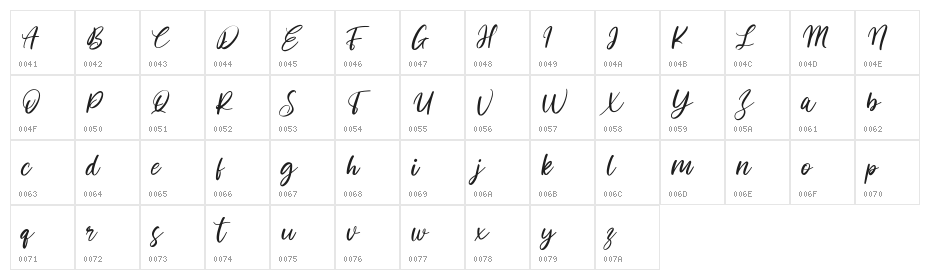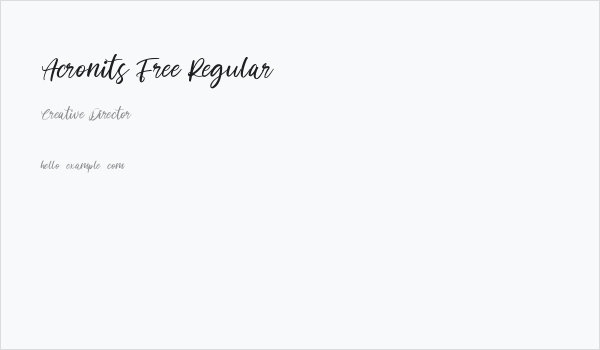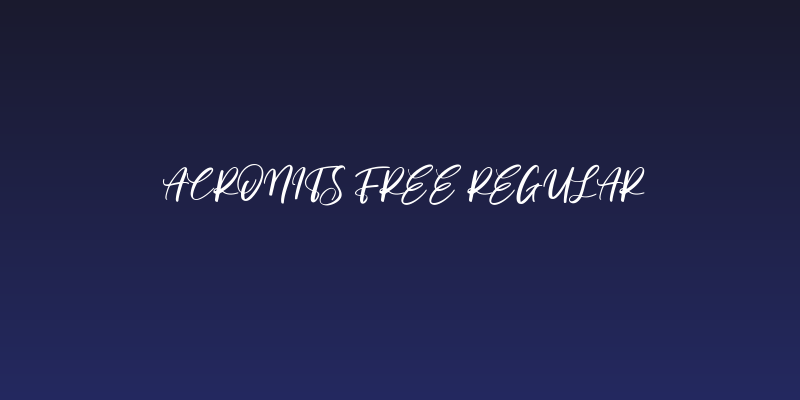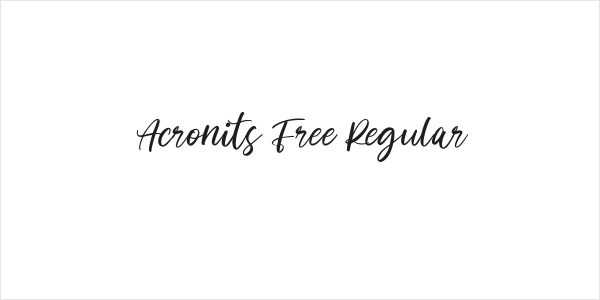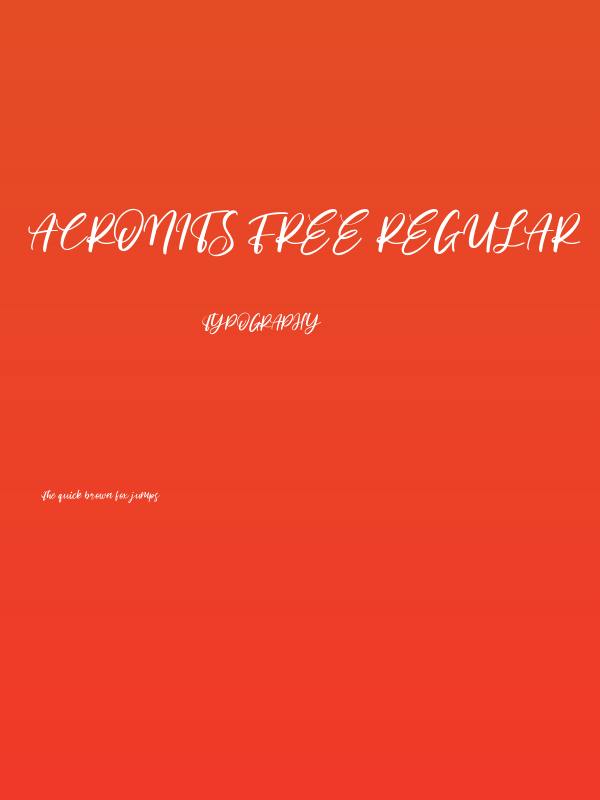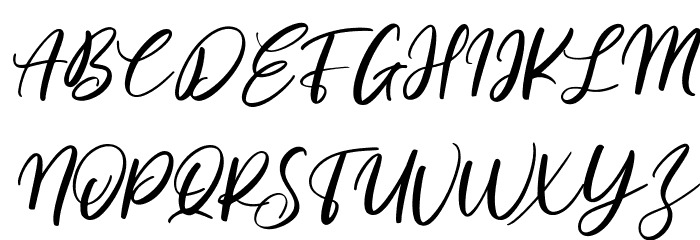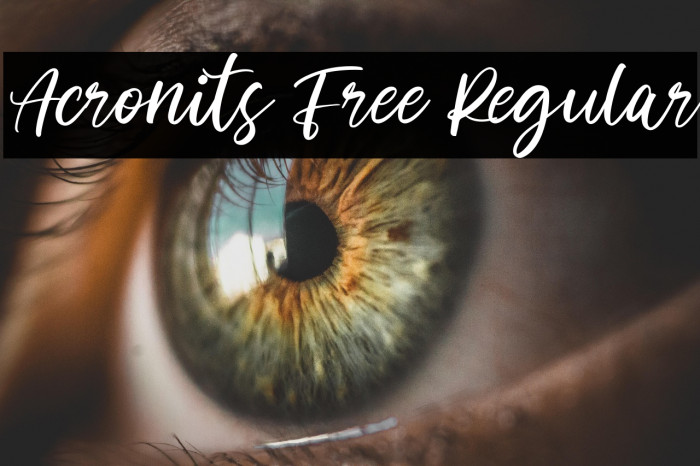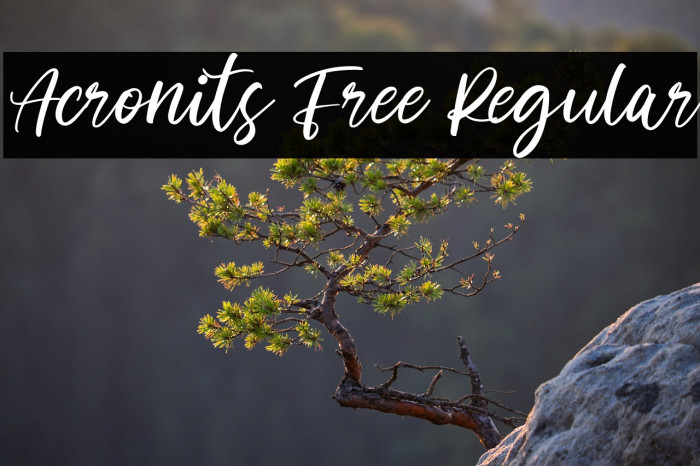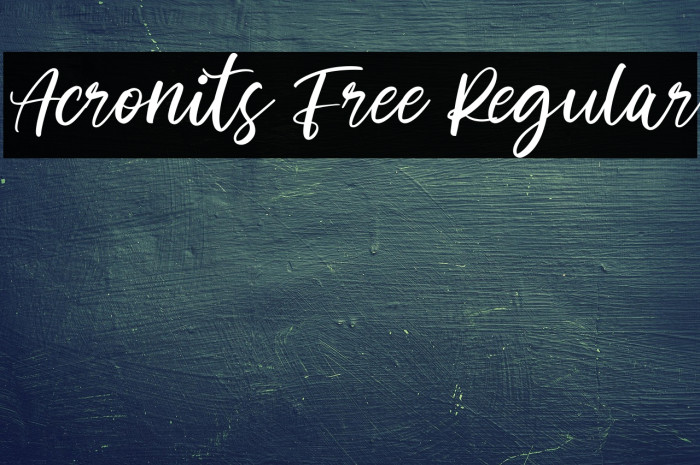
Acronits Free Regular Font
Acronits Free Regular Description
This font exudes a lively and elegant script style, characterized by its fluid, cursive strokes and graceful curves. Each letter is crafted with a sense of movement, creating a dynamic and flowing appearance. The uppercase letters are bold and prominent, while the lowercase letters maintain a consistent rhythm and balance. The font's design is reminiscent of traditional calligraphy, with a modern twist that adds a touch of sophistication. The characters are well-spaced, ensuring readability while maintaining an artistic flair. This font is perfect for projects that require a personal and stylish touch, such as invitations, branding, and decorative designs.